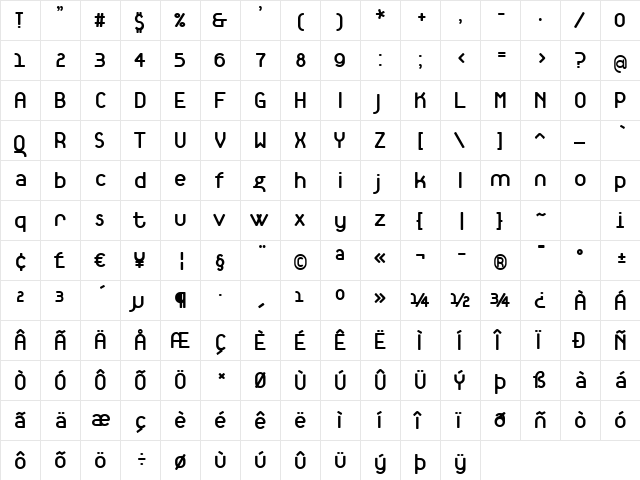
TantalusBold Regular
Design Context for TantalusBold Typeface
TantalusBold is a composed and adaptable typeface that performs quietly and consistently across a wide range of design contexts. Its bold stroke weight gives it real presence on the page.